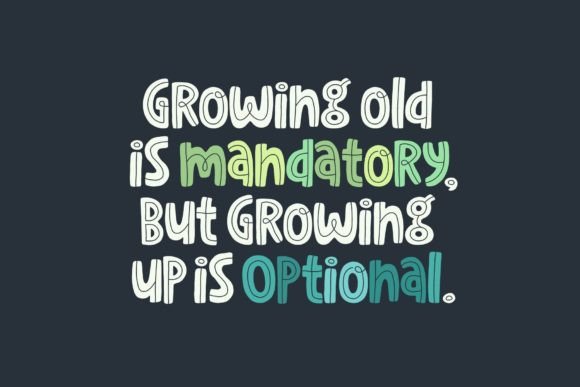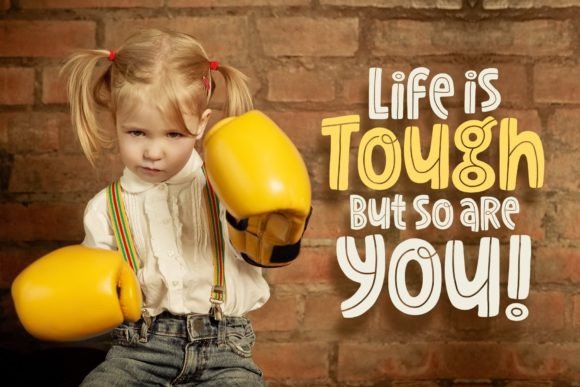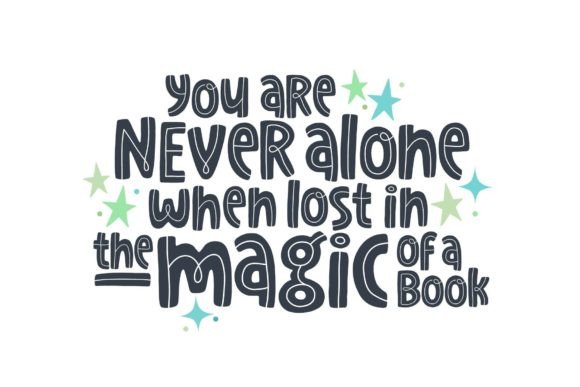
Skiba Font
Skiba is a bold and playful, hand-drawn display font with a unique inline style. It is perfect for large headings, t-shirt designs, or typographic posters.